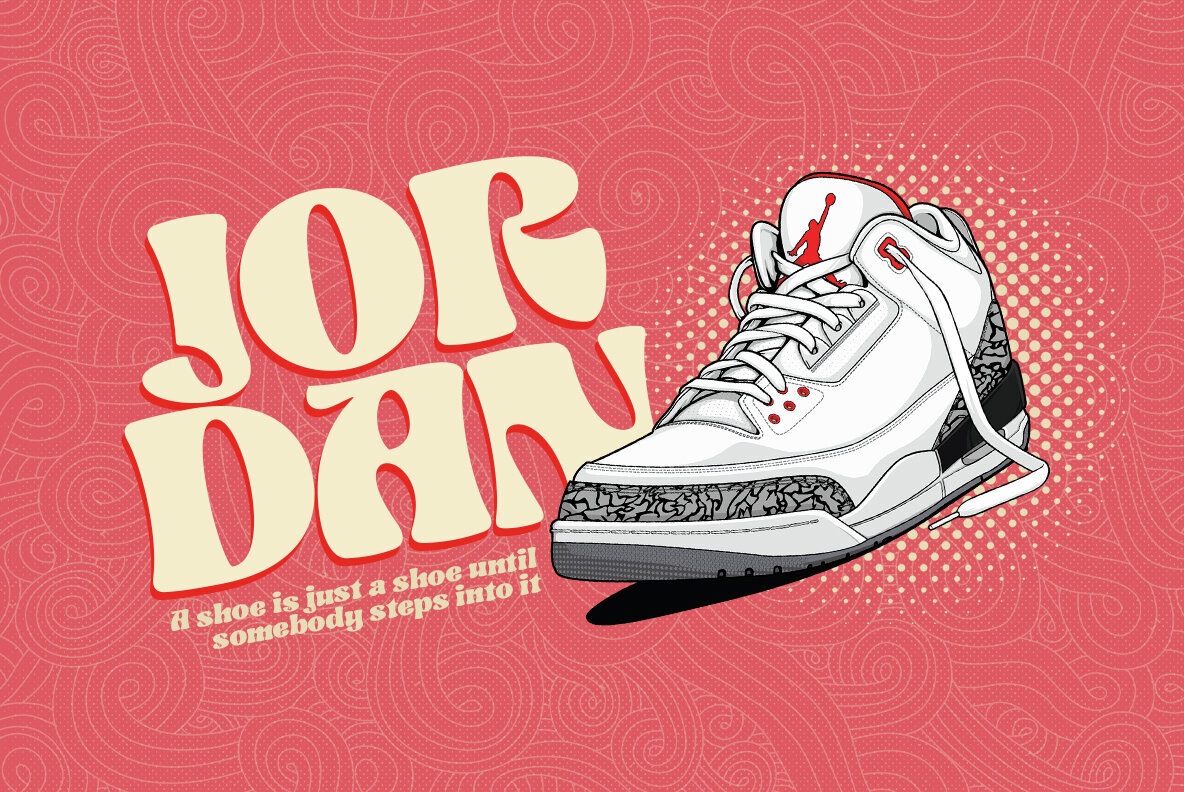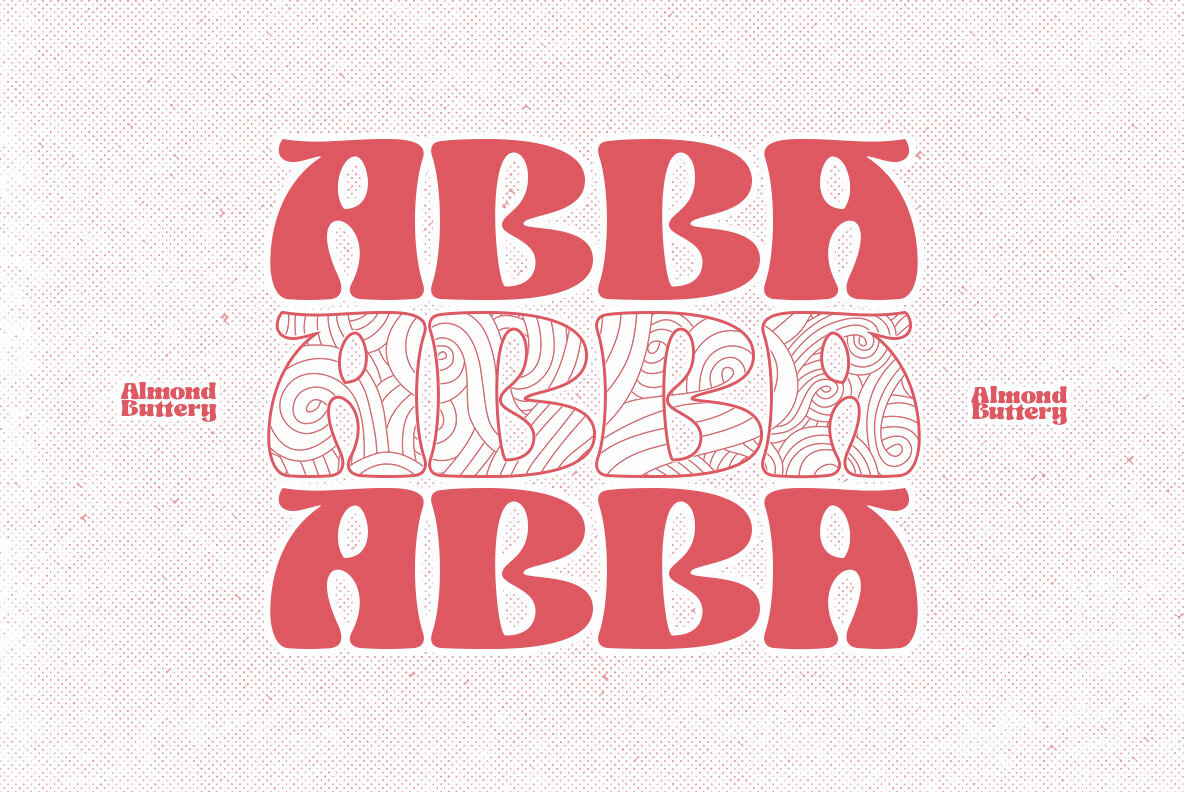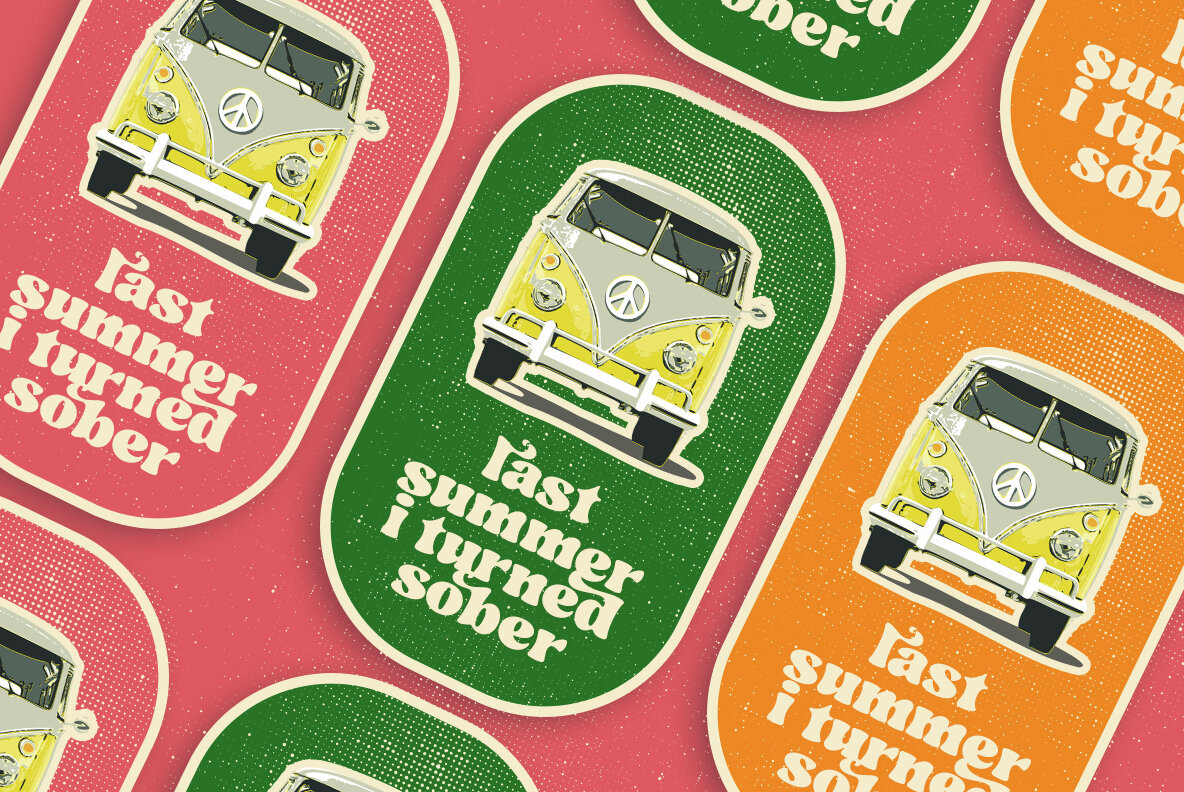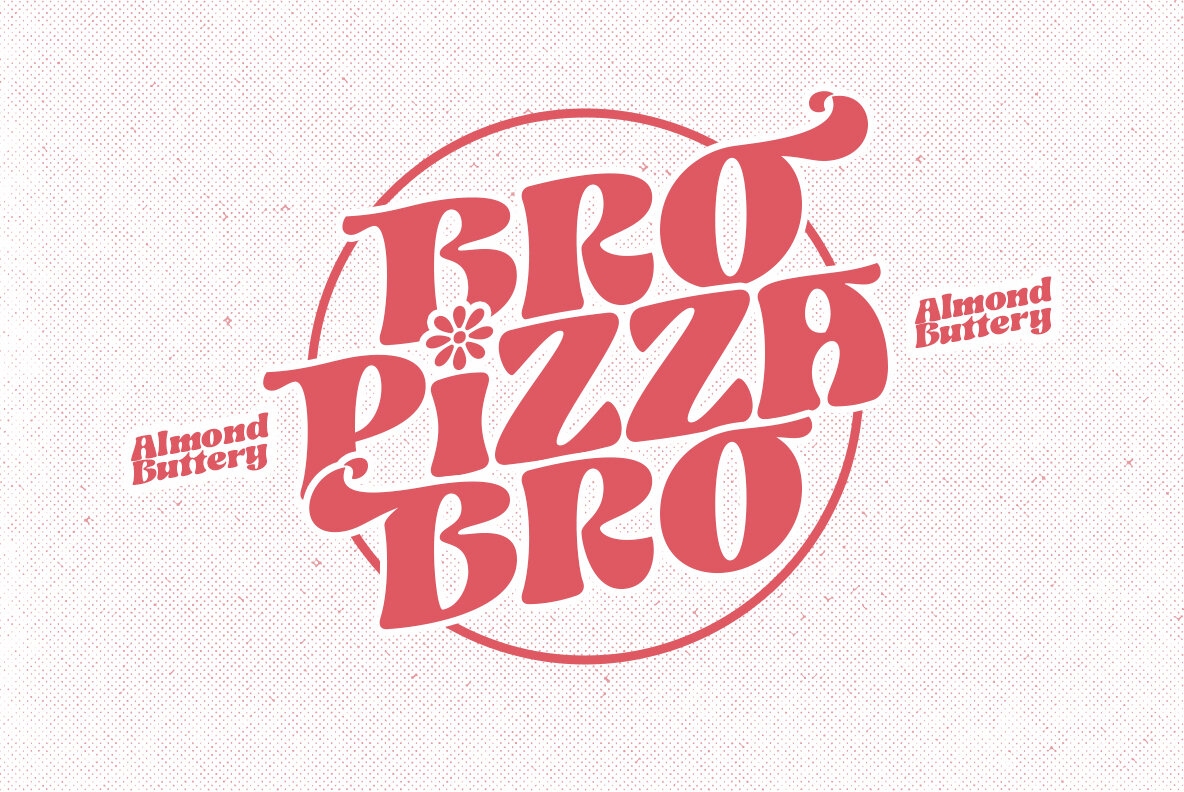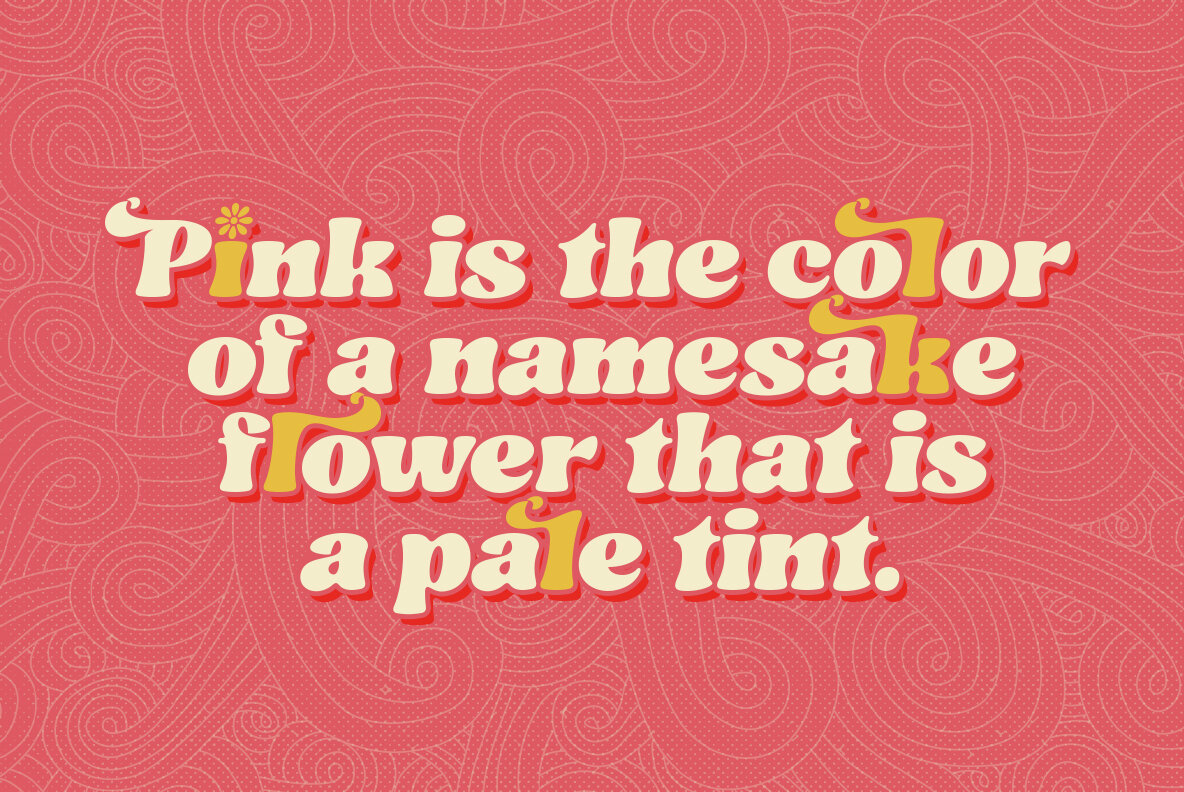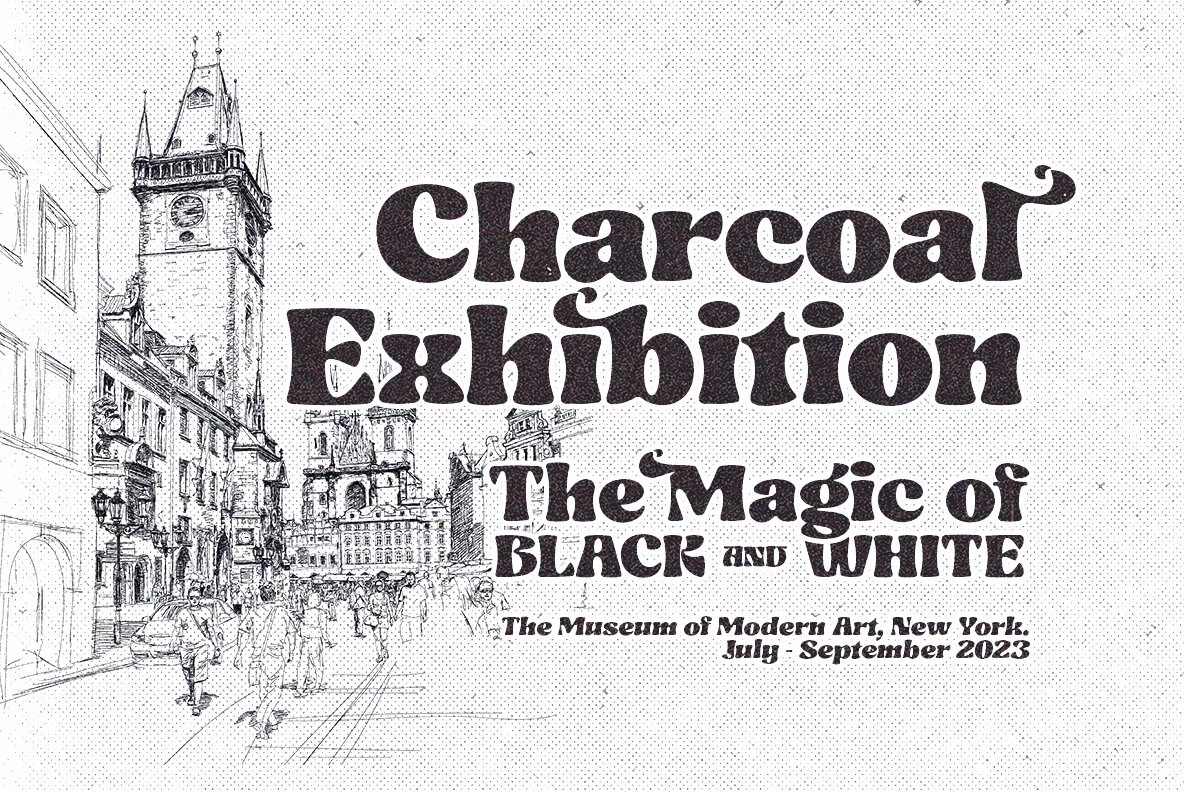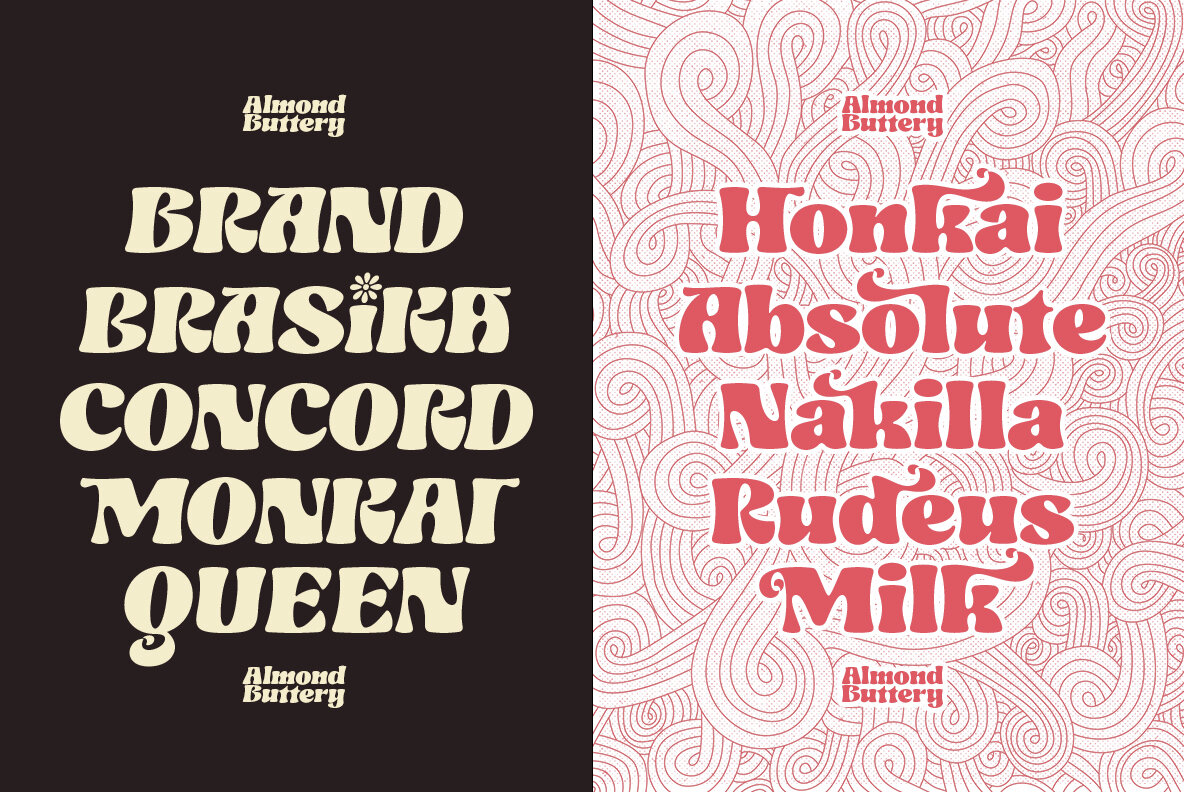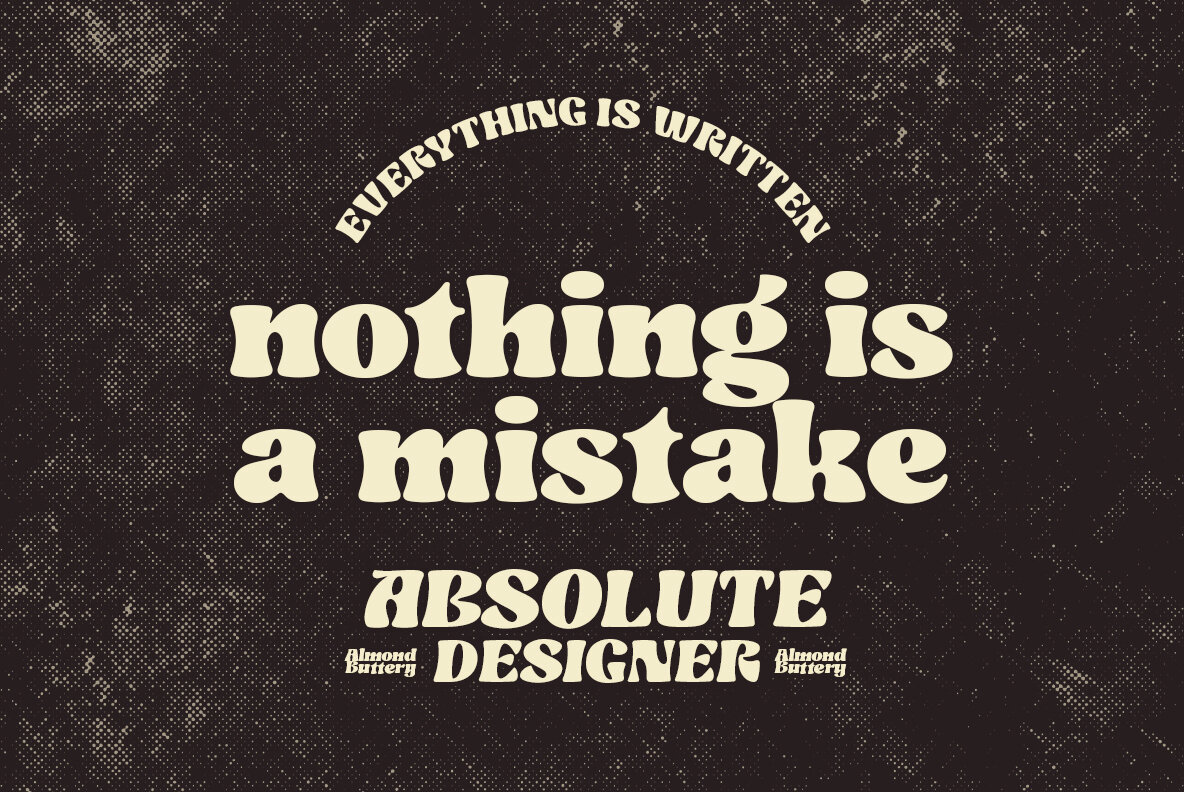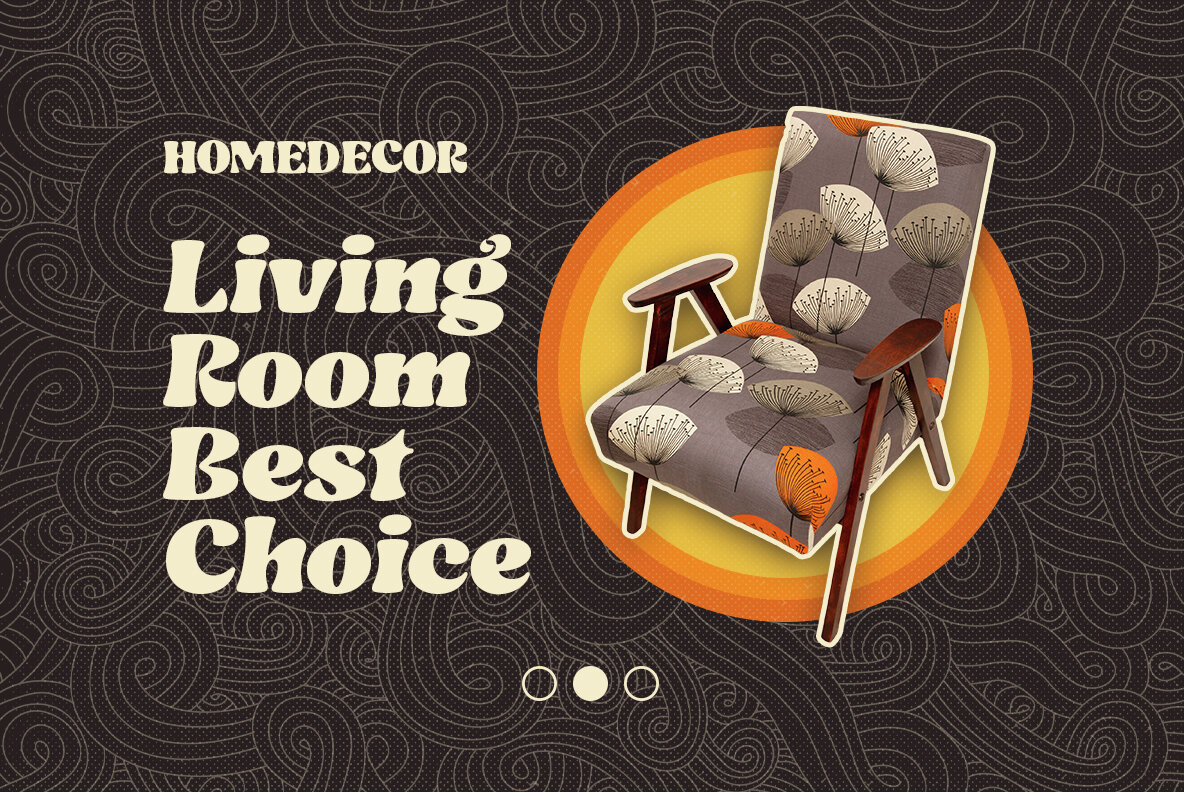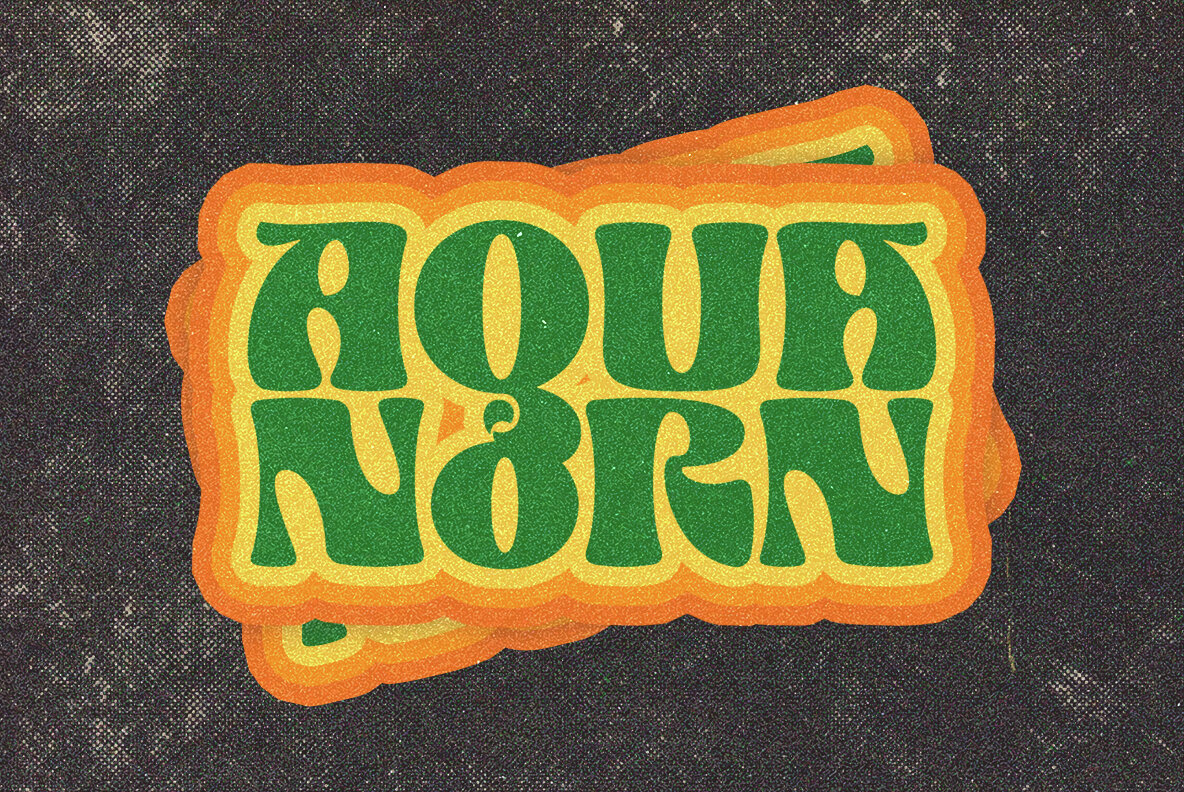
Almond Buttery Font
Almond Buttery Regular
Almond Buttery Italic
Transform your designs with "Almond Buttery," a font that combines nostalgic retro flair with modern vibrancy. Featuring curvaceous letterforms and an array of stylistic alternates, this dynamic typeface offers a unique blend of charm and playfulness, perfect for adding character to any project.Almond Buttery: A Retro Bold Font with Playful Elegance
Font Highlights